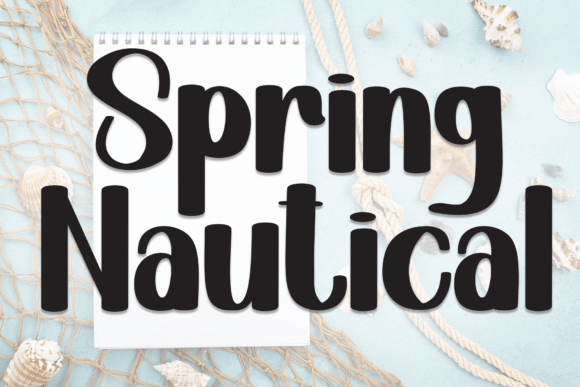
Introducing Spring Nautical Font: The Perfect Choice for Fresh and Friendly Designs
Are you looking for a font that exudes a sense of freshness and friendliness? Look no further than Spring Nautical Font. This casual and neat display font is designed to radiate a warm and approachable vibe, making it perfect for a variety of design projects. In this article, we’ll take a closer look at the features and benefits of Spring Nautical Font and explore how it can elevate your designs.
Clean Lines and Relaxed Structure
One of the standout features of Spring Nautical Font is its clean lines and relaxed structure. The font’s design is characterized by a sense of simplicity and elegance, making it easy to read and understand. The clean lines also give the font a crisp and modern look, while the relaxed structure adds a touch of friendliness and approachability.
This unique combination of clean lines and relaxed structure makes Spring Nautical Font perfect for a variety of design projects, including packaging, posters, and social media graphics. Whether you’re designing a label for a product, creating a poster for an event, or crafting a social media graphic, Spring Nautical Font is sure to make your design stand out.
Perfect for Packaging, Posters, and Social Media Graphics
Spring Nautical Font is a versatile font that can be used for a wide range of design projects. Its clean and modern design makes it perfect for packaging, where it’s essential to make a strong first impression. The font’s friendly and approachable vibe also makes it well-suited for posters and social media graphics, where you want to engage and connect with your audience.
Here are just a few examples of how you can use Spring Nautical Font in your designs:
- Packaging: Use Spring Nautical Font to create eye-catching labels and packaging for your products. The font’s clean lines and relaxed structure make it perfect for showcasing your brand’s personality and style.
- Posters: Create stunning posters with Spring Nautical Font that grab attention and communicate your message clearly. The font’s friendly and approachable vibe makes it perfect for promoting events, products, or services.
- Social Media Graphics: Use Spring Nautical Font to create engaging social media graphics that connect with your audience. The font’s clean and modern design makes it perfect for creating graphics that stand out in crowded social media feeds.
Approachable Design Adds Charm and Clarity
One of the key benefits of Spring Nautical Font is its approachable design. The font’s friendly and relaxed vibe makes it easy to connect with your audience and communicate your message clearly. The approachable design also adds charm and clarity to your projects, making them more engaging and effective.
The charm of Spring Nautical Font lies in its ability to balance polish and friendliness. The font’s clean lines and relaxed structure give it a polished appearance, while its friendly and approachable vibe adds a touch of warmth and personality. This unique balance makes Spring Nautical Font perfect for designs that require a professional yet approachable look.
Polished Appearance
Spring Nautical Font has a polished appearance that makes it perfect for designs that require a professional look. The font’s clean lines and relaxed structure give it a crisp and modern appearance, while its friendly and approachable vibe adds a touch of warmth and personality.
The polished appearance of Spring Nautical Font makes it perfect for a variety of design projects, including:
- Branding: Use Spring Nautical Font to create a strong brand identity that communicates your values and personality.
- Marketing Materials: Use Spring Nautical Font to create marketing materials that showcase your products or services in a professional and compelling way.
- Website Design: Use Spring Nautical Font to create a website that is both visually appealing and easy to navigate.
Why Choose Spring Nautical Font?
There are many fonts to choose from, but Spring Nautical Font stands out for its unique combination of clean lines, relaxed structure, and friendly vibe. Here are just a few reasons why you should choose Spring Nautical Font for your next design project:
- Unique Design: Spring Nautical Font has a unique design that sets it apart from other fonts. Its clean lines and relaxed structure make it perfect for designs that require a fresh and friendly look.
- Versatility: Spring Nautical Font is a versatile font that can be used for a wide range of design projects, from packaging to posters to social media graphics.
- Easy to Read: Spring Nautical Font is easy to read and understand, making it perfect for designs that require clear communication.
- Polished Appearance: Spring Nautical Font has a polished appearance that makes it perfect for designs that require a professional look.
So why wait? Choose Spring Nautical Font for your next design project and experience the benefits of a fresh and friendly font that is sure to engage and connect with your audience.